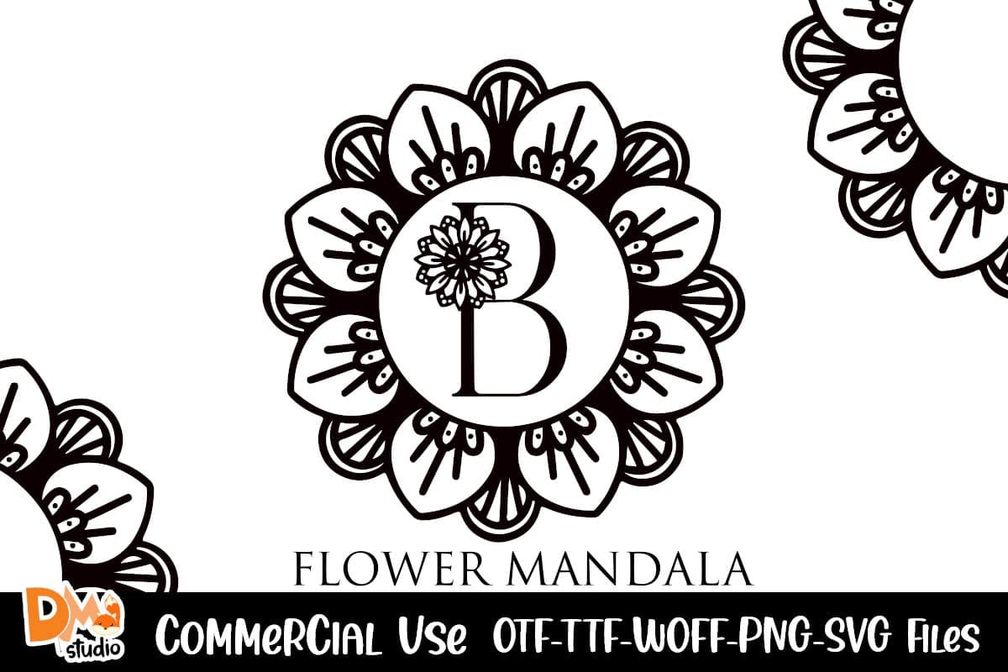
Flower Mandala Monogram Font
Introducing this beauty, elegant and gorgeous mandala monogram font. Make your design more exclusive by using this monogram, comes in two styles : with and without line.
• All in caps
• Two styles monogram : Regular and Line
• Numbers
• Empty frame ( entire keyboard symbols )
• The letters are exclusively made for our monogram fonts.